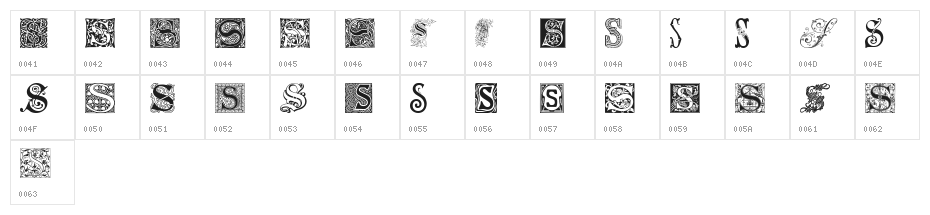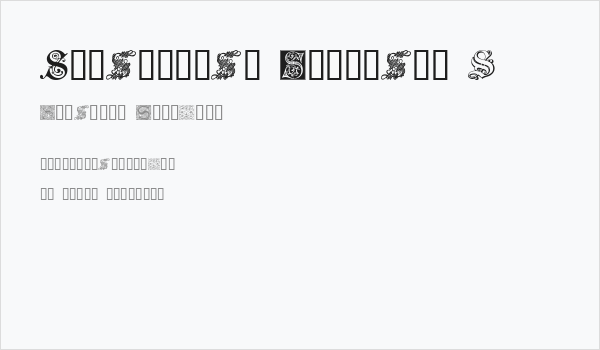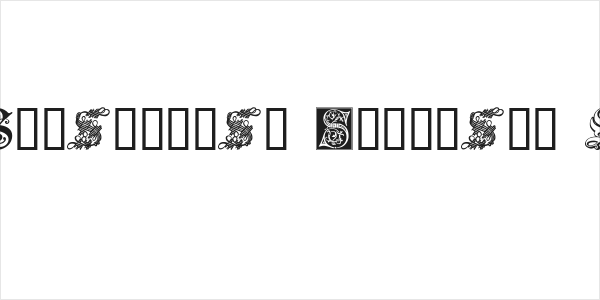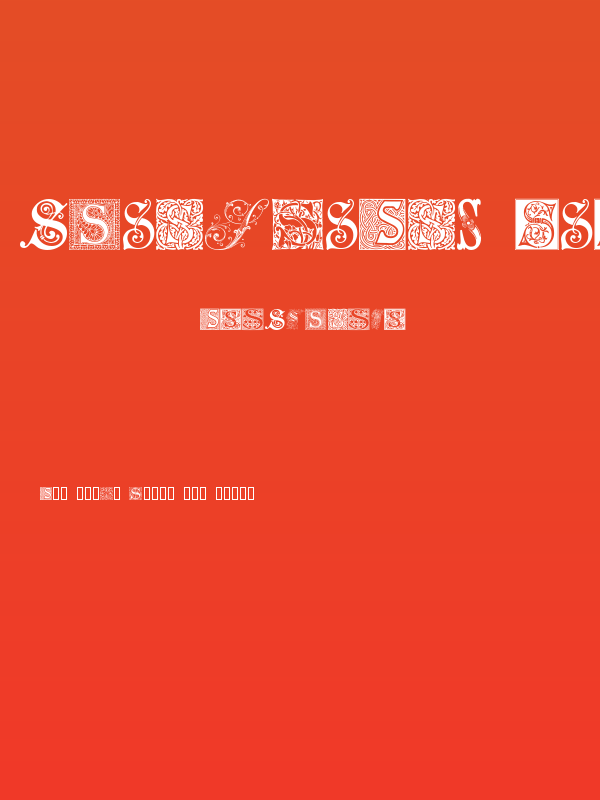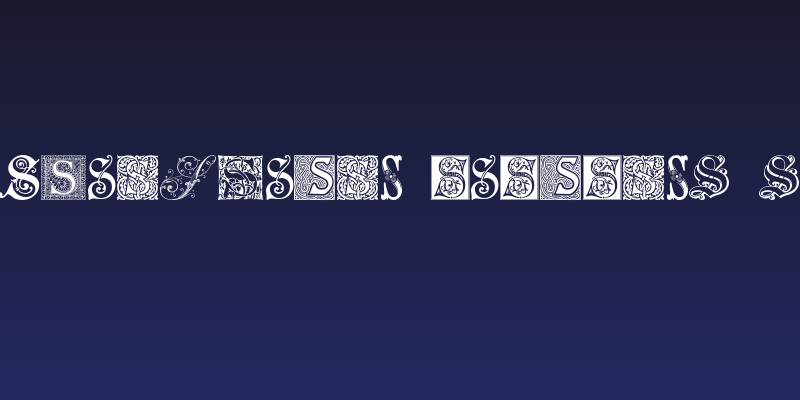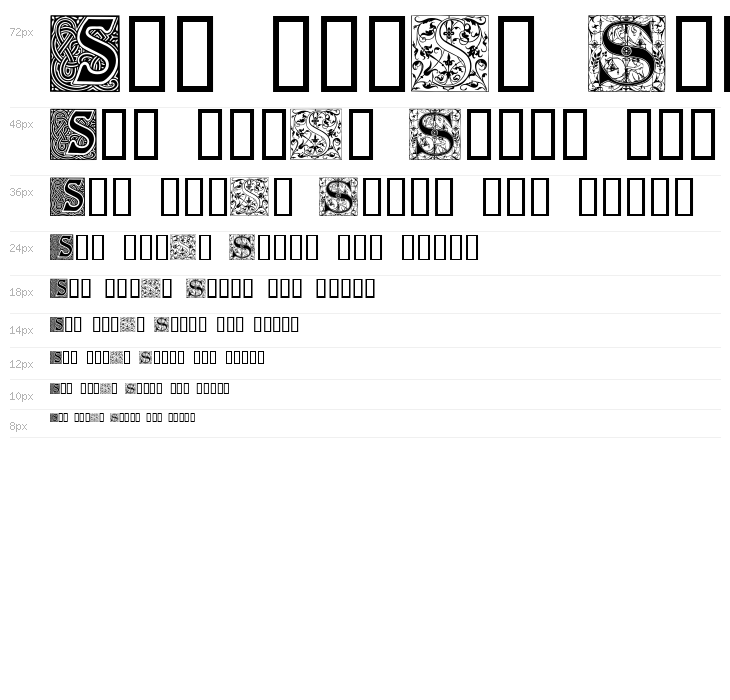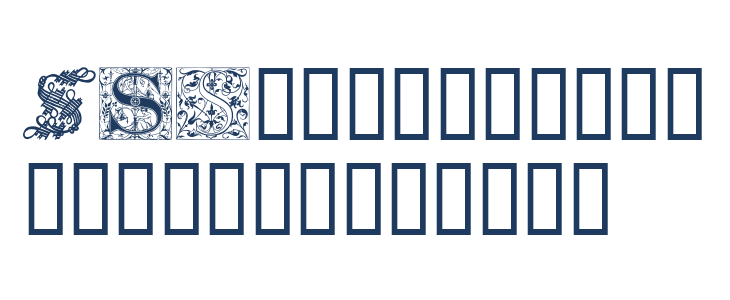
Ornamental Initials S Font
Ornamental Initials S Description
This font is a highly decorative and ornate style, featuring intricate floral and vine-like embellishments surrounding each letter. The design is reminiscent of medieval illuminated manuscripts, with each character enclosed in a square or rectangular frame. The letters themselves are bold and stylized, often incorporating additional flourishes and swirls within the letterforms. This font is primarily uppercase, with each letter serving as an elaborate initial or decorative element. The overall aesthetic is rich and detailed, making it suitable for projects that require a historical or classical touch.
| Use Case | Headlines, Logos, Decorative elements |
| Proposed Projects | Ideal for use in wedding invitations, historical book covers, luxury branding, or any project requiring a classical and ornate touch. |